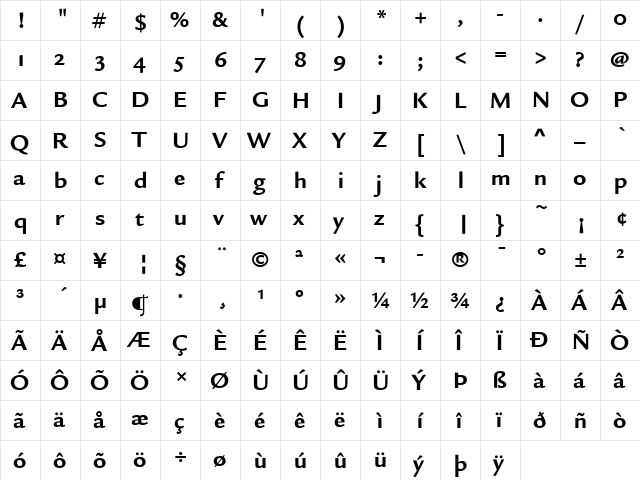
Legacy Sans ITC Bold Font Preview
Legacy Sans ITC Bold
Legacy Sans ITC Bold Font Details
Design Context for Legacy Sans ITC Typeface
Legacy Sans ITC offers clean, dependable letterforms without strong stylistic allegiance, making it a practical choice for designers who need flexibility. Its bold stroke weight gives it real presence on the page.